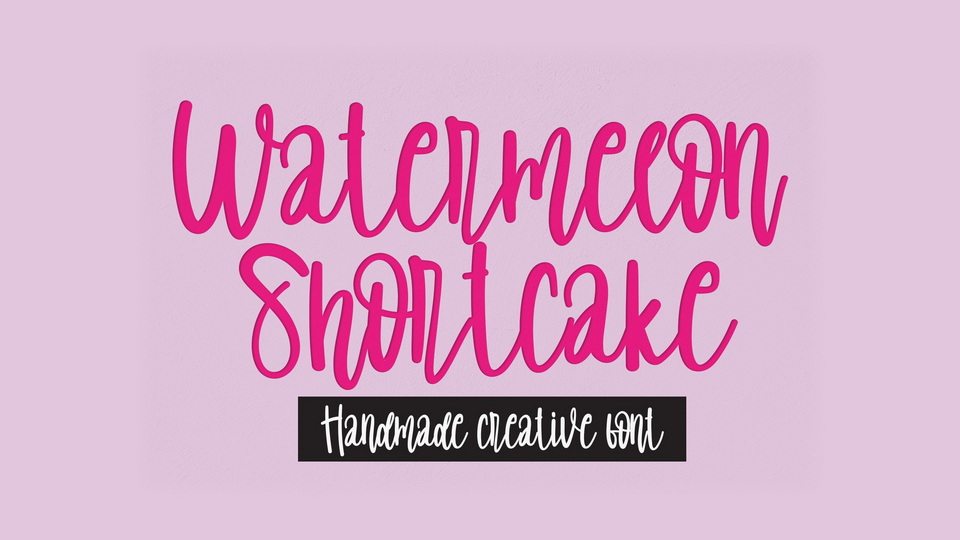
Download Watermelon Shortcake font, a casual handwritten typeface made of beautiful, creative strokes. Watermelon Shortcake font is perfect for your creative ideas, both formal and informal.